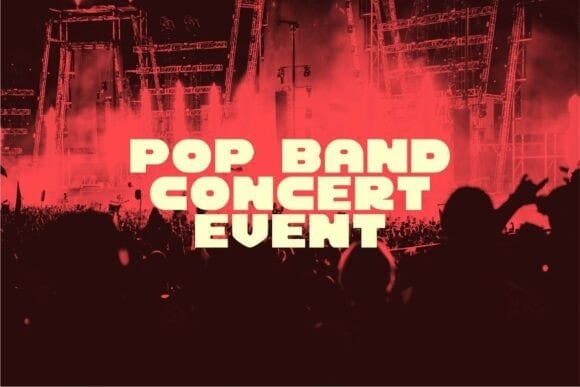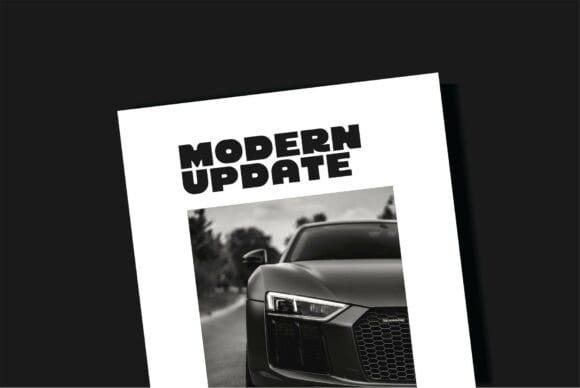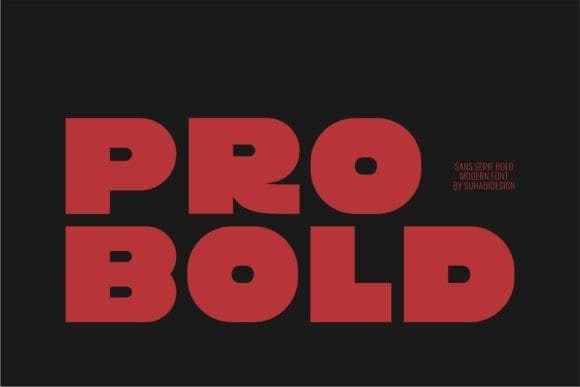
Pro Bold Font
Pro Bold Font is a sans serif font presented in a modern style to become a market favorite. We’ve kept this font elegant, classy, ​​modern, stylish, contemporary, and easy to use. Pro Bold is a great choice for magazines, book covers, shopping bags, packaging, logos, labels, fashion, posters, banners, bags, branding, fashion, brand names, branding, quotes, and other projects. Pro Bold is here to take your designs to the next level.